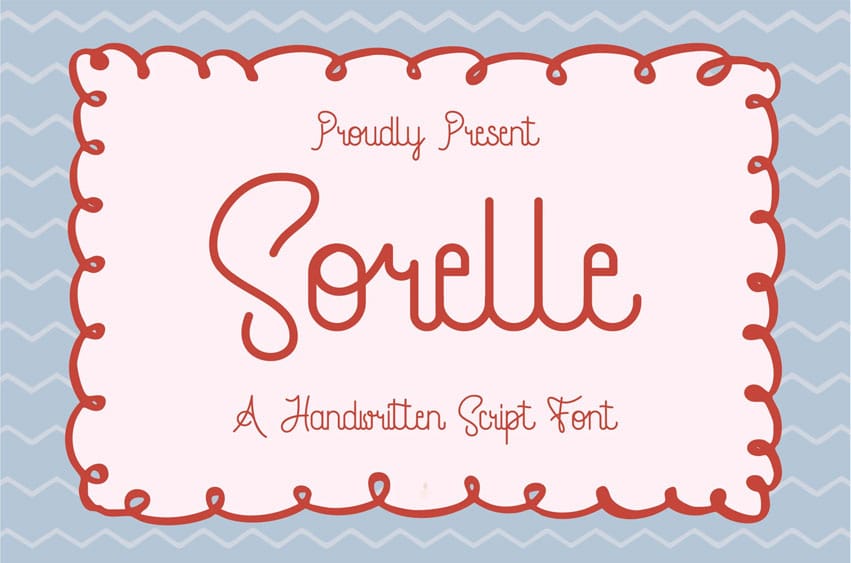
Sorelle Font is a beautifully crafted script font that exudes warmth and elegance. Its smooth, flowing curves and sophisticated swashes make it perfect for designs that require a touch of refinement.
With a graceful balance between readability and artistic flair, Sorelle brings a sense of timeless beauty to any project, whether it’s used for invitations, logos, or branding. The font’s delicate yet bold character makes it versatile for both modern and classic designs, adding a personal and stylish touch to your creative endeavors.